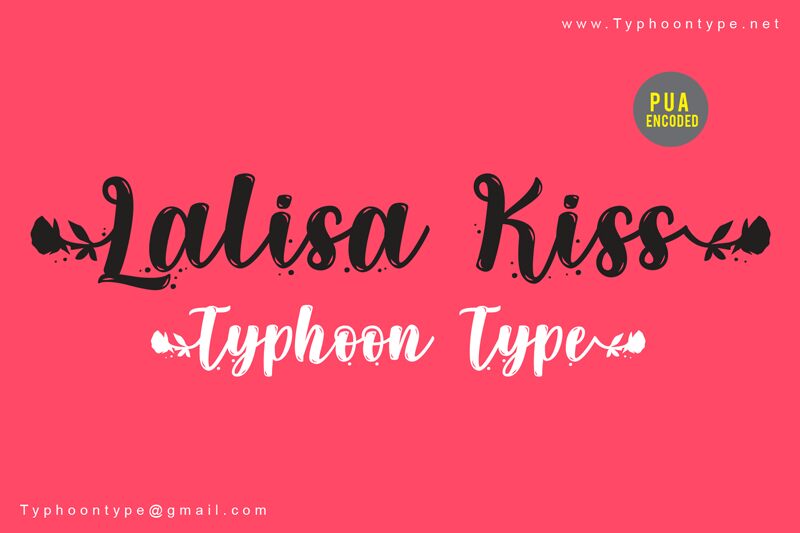
Lalisa Kiss font is a beautiful script font designed by Suthi Srisopha of Typhoon Type.
Type ( before word to get beginning swash and Type ) after word to get the ending swash.
Example : (Lalisa Kiss)